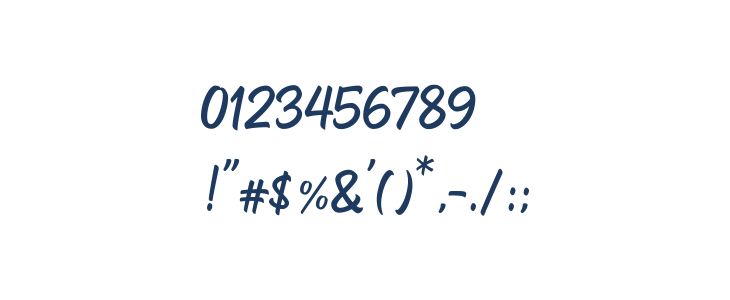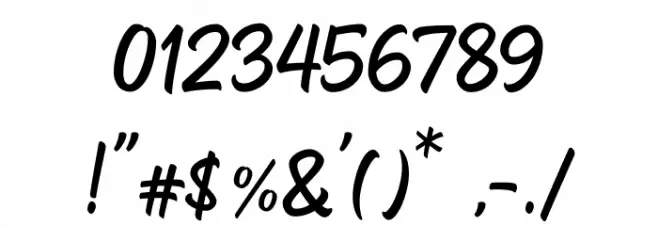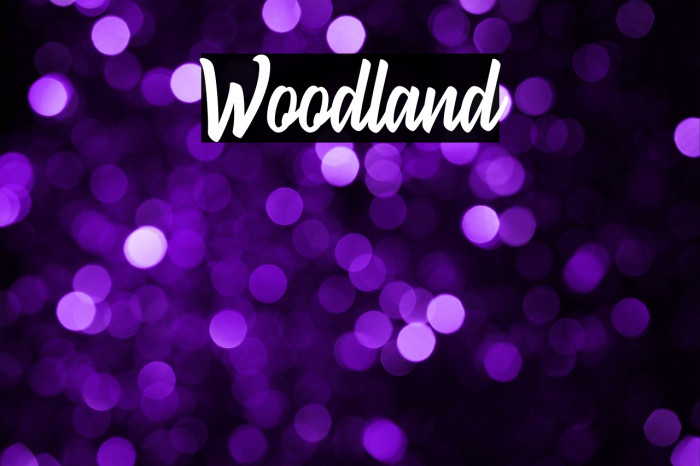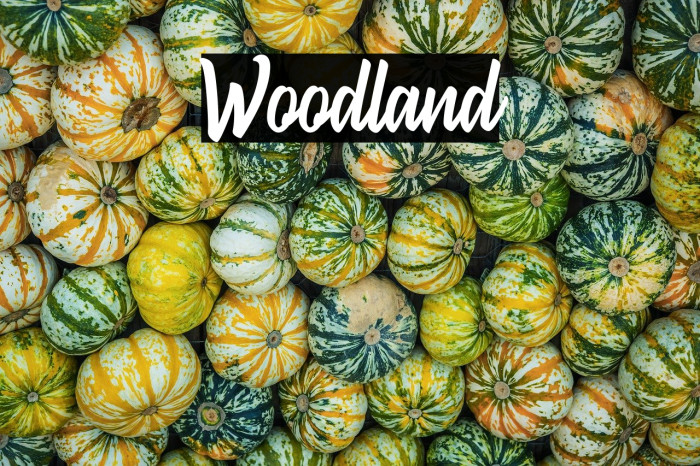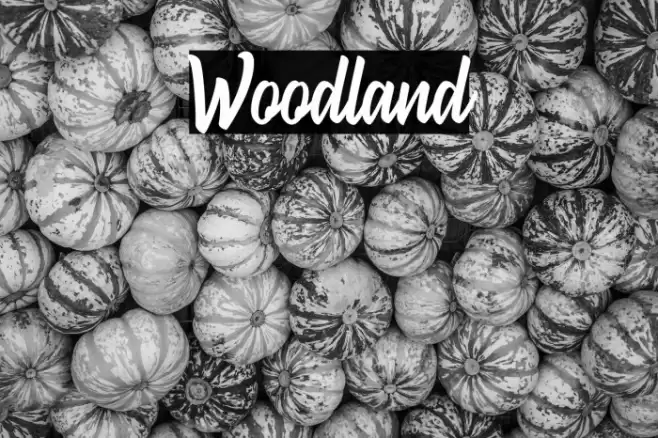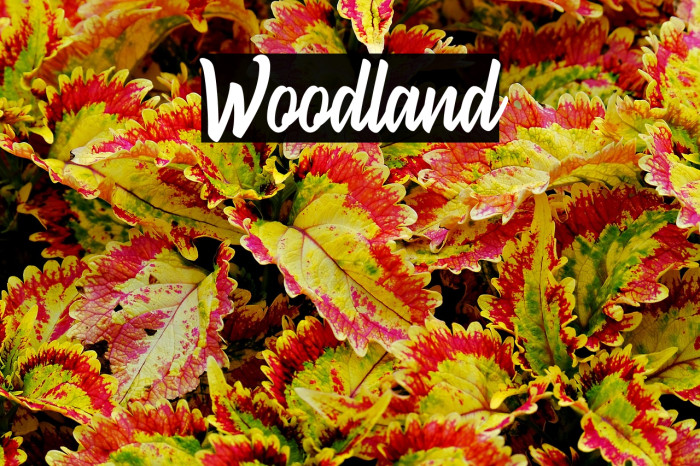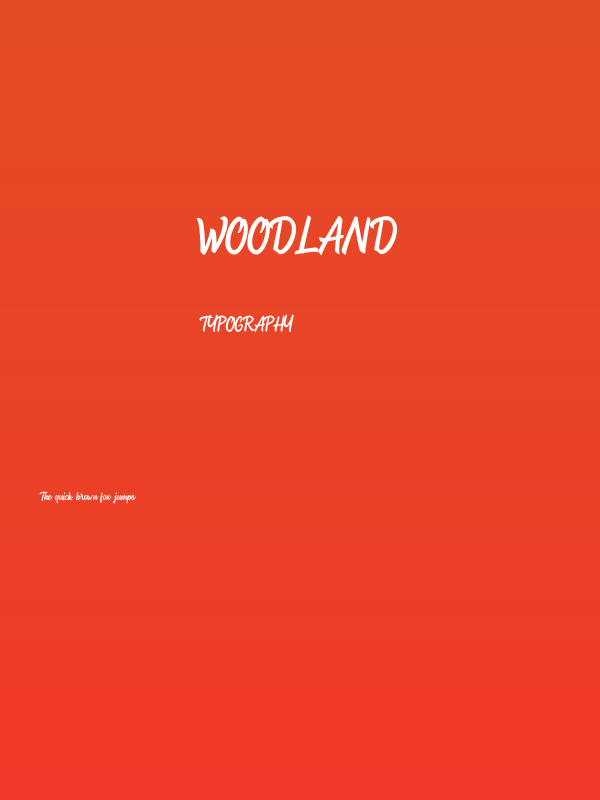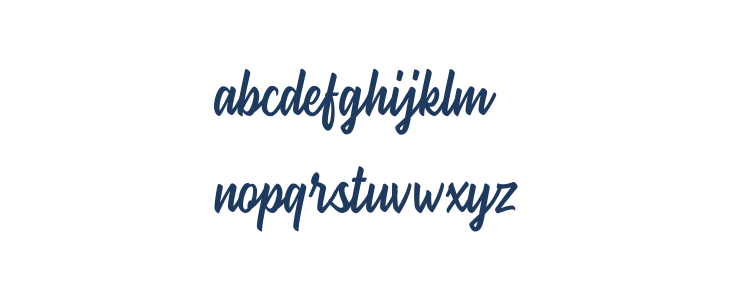
Woodland Font
Woodland Description
This font features a lively and dynamic script style, characterized by its fluid and connected letterforms. The strokes are bold and expressive, with a slight slant that adds a sense of movement and energy. The uppercase letters are prominent and commanding, while the lowercase letters maintain a consistent flow, enhancing readability. The numerals are clear and well-defined, matching the overall aesthetic of the font. Special characters are thoughtfully designed to complement the script style, making it versatile for various applications.
| Proposed Projects | Ideal for branding, invitations, greeting cards, and signage where a personal and dynamic touch is desired. |